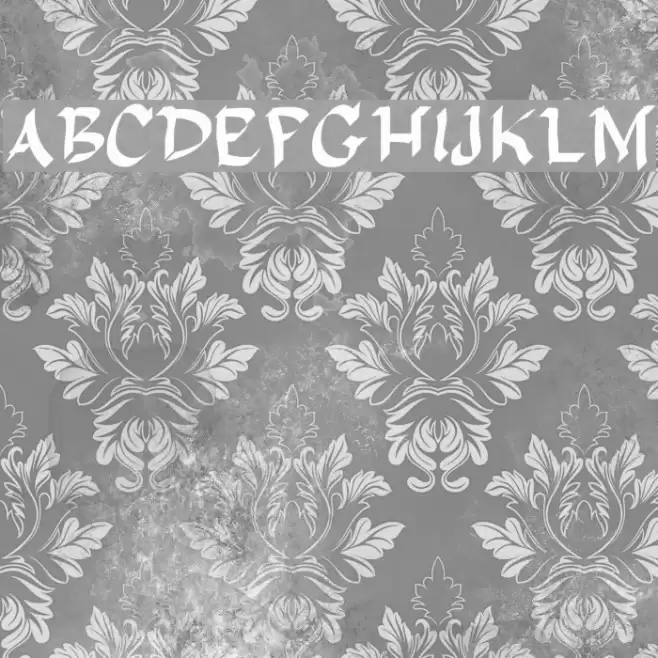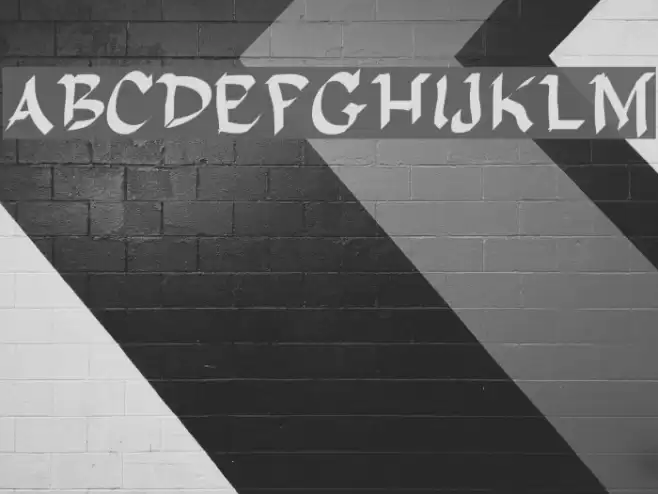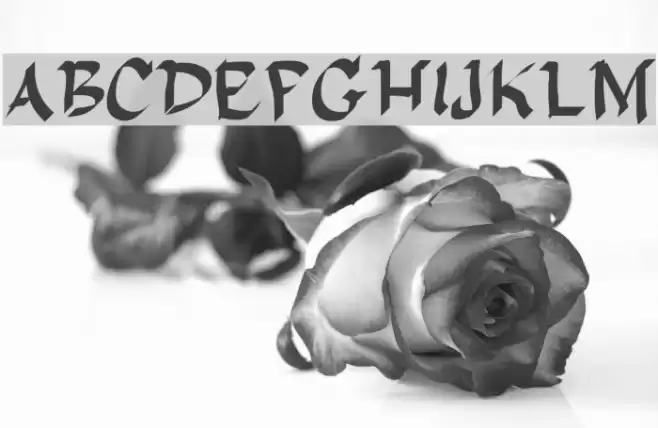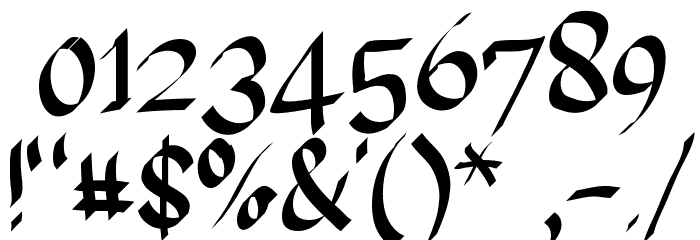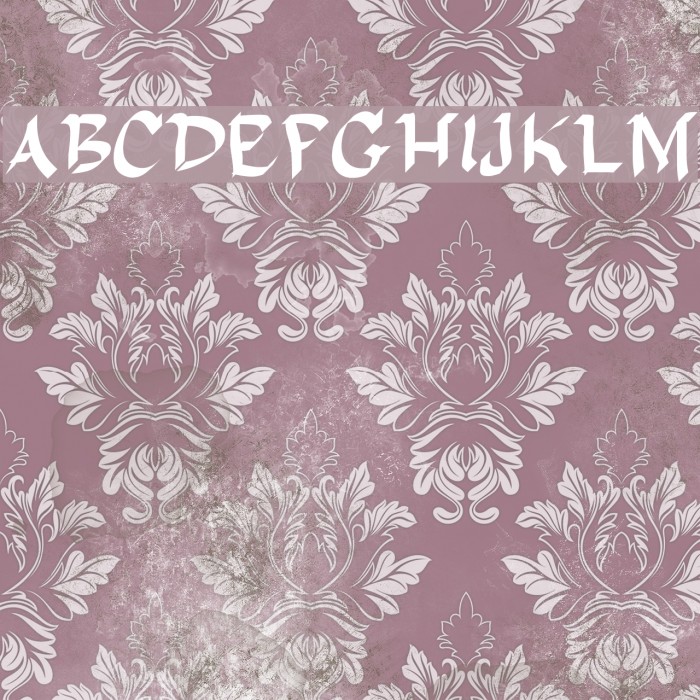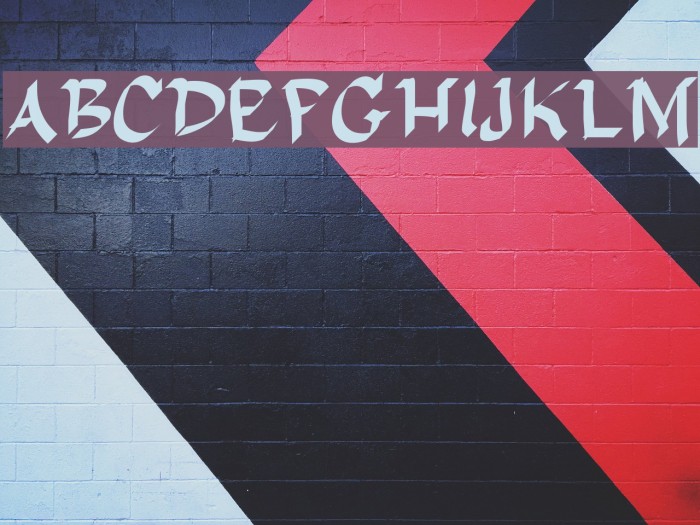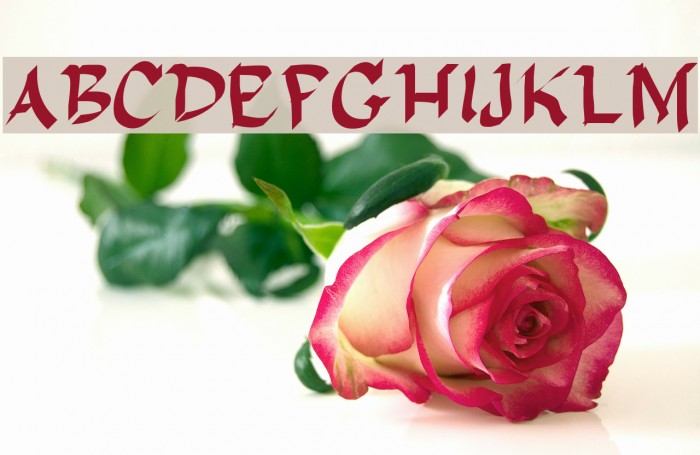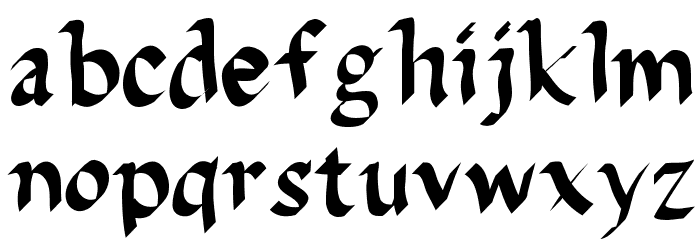
DelaGarza Font
DelaGarza Description
This font features a bold and dynamic style with sharp, angular strokes that give it a dramatic and energetic appearance. The uppercase letters are particularly striking, with a calligraphic flair that suggests movement and fluidity. The lowercase letters maintain this dynamic quality, offering a cohesive look across the alphabet. Numbers and special characters are designed with the same bold strokes, ensuring consistency throughout. The font's unique style makes it stand out, perfect for projects that require a strong visual impact.
A bold, dynamic font with sharp, angular strokes and a calligraphic flair.